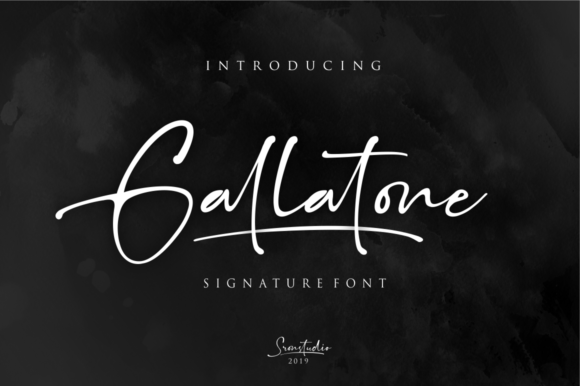
Gallatone Font: Elevate Your Designs with a Classic Signature Font
In the world of typography, fonts play a crucial role in conveying messages, expressing emotions, and creating identities. Among the numerous fonts available, the Gallatone font stands out as a classic signature font that has gained popularity for its elegance, versatility, and charm. In this article, we’ll explore the features, benefits, and uses of the Gallatone font, and how it can elevate your designs to the next level.
What is the Gallatone Font?
The Gallatone font is a sophisticated and stylish signature font designed to add a touch of luxury and refinement to various design projects. Its classic and timeless look makes it perfect for creating stunning visual content that exudes elegance and sophistication.
Key Features of the Gallatone Font
- Classic Signature Style: The Gallatone font boasts a classic signature style that is both elegant and refined, making it perfect for creating high-end designs.
- Bonus Swashes: The font comes with bonus swashes that allow you to add a creative touch to your designs and make them more visually appealing.
- Versatility: The font is highly versatile and can be used for a wide range of design projects, from personal branding and logos to invitations, stationery, and social media posts.
Uses of the Gallatone Font
The Gallatone font is an incredibly versatile font that can be used for various design projects, including:
- Personal Branding and Logos: Create a stunning logo or personal brand identity with the Gallatone font that exudes elegance and sophistication.
- Invitations and Stationery: Use the font to create beautiful invitations, stationery, and greeting cards that make a lasting impression.
- Wedding Designs: The Gallatone font is perfect for creating stunning wedding designs, including wedding invitations, programs, and decorations.
- Social Media Posts: Elevate your social media posts with the Gallatone font and make them more visually appealing.
- Advertisements: Use the font to create eye-catching advertisements that grab attention and convey your message effectively.
- Product Packaging and Designs: Add a touch of elegance to your product packaging and designs with the Gallatone font.
- Labels and Watermarks: Use the font to create beautiful labels and watermarks that add a professional touch to your products and designs.
- Special Events: The Gallatone font is perfect for creating stunning designs for special events, including conferences, exhibitions, and festivals.
Benefits of Using the Gallatone Font
The Gallatone font offers numerous benefits to designers, including:
- Elegance and Sophistication: The font adds a touch of elegance and sophistication to designs, making them more visually appealing.
- Versatility: The Gallatone font can be used for a wide range of design projects, making it a valuable addition to any designer’s toolkit.
- Easy to Read: The font is highly legible, making it easy to read and understand.
- Customizable: The font comes with bonus swashes and photography clipart, allowing designers to customize their designs and add a creative touch.
Tips for Using the Gallatone Font
Here are some tips for using the Gallatone font effectively:
- Use it Sparingly: Use the font sparingly to create a lasting impression. Overusing the font can make designs look cluttered and messy.
- Pair it with Other Fonts: Pair the Gallatone font with other fonts to create a unique and visually appealing design.
- Experiment with Swashes: Experiment with the bonus swashes to add a creative touch to your designs.
- Use High-Quality Images: Use high-quality images and photography clipart to enhance your designs and make them more visually appealing.
In conclusion, the Gallatone font is a classic signature font that offers elegance, versatility, and charm. Its features, including bonus swashes and photography clipart, make it perfect for creating stunning designs for various projects. By following the tips outlined in this article, designers can use the Gallatone font effectively and elevate their designs to the next level.